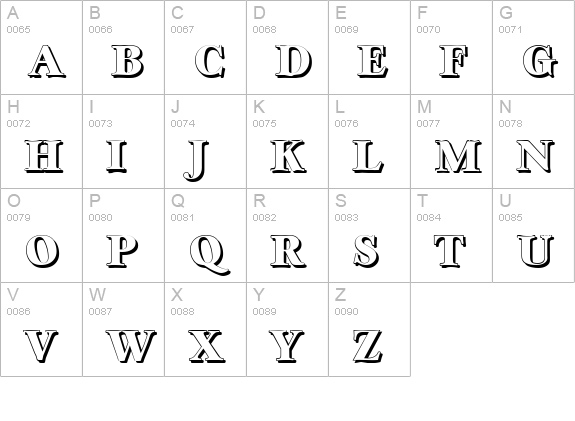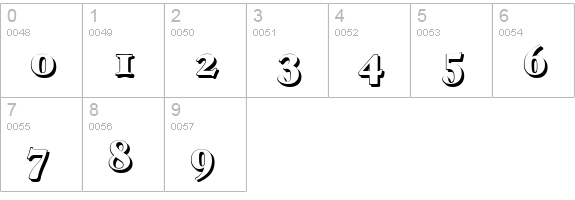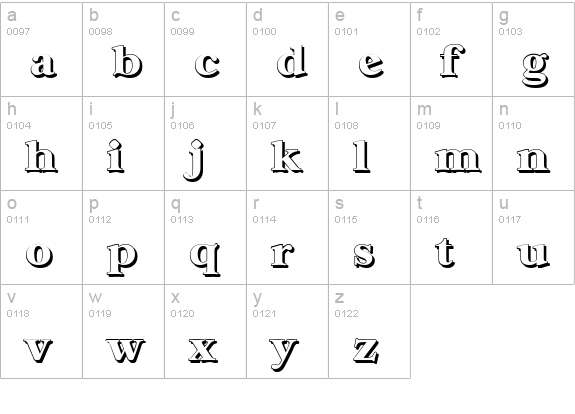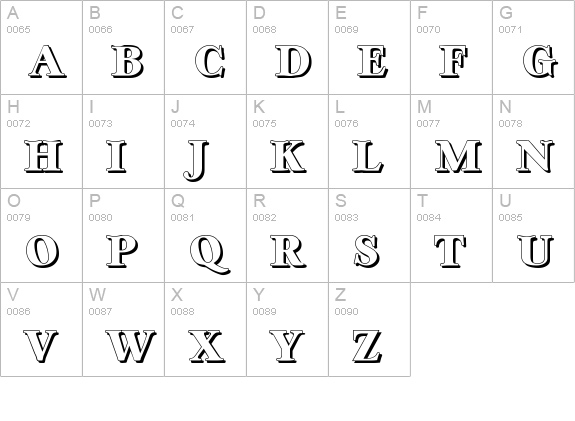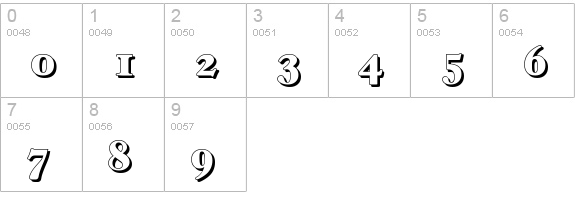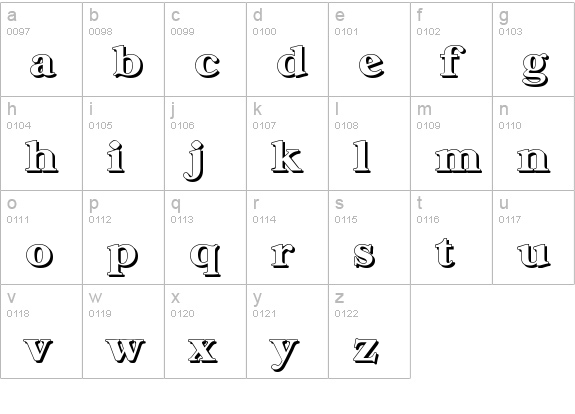
CasablancaShadow-Heavy-Regular Font Details
CasablancaShadow-Heavy-Regular is a heavy, high-impact variant in the CasablancaShadow typeface family \xE2\x80\x94 well suited to high-impact headlines, posters, and display advertising.
CasablancaShadow-Heavy-Regular is a striking and bold display font that exudes elegance and sophistication. Its sharp shadows add depth and dimension to any design, making it perfect for headlines, logos, and branding materials. This font combines classic elements with a modern twist, creating a timeless and versatile typeface that will make your projects stand out. Best of all, CasablancaShadow-Heavy-Regular is available for free download at FontsMarket.com. Whether you're a designer looking to add a touch of drama to your creations or a business owner in need of a distinctive font for your brand, this font has you covered. Don't miss out on the opportunity to enhance your projects with this stunning and impactful typeface. Download CasablancaShadow-Heavy-Regular today and elevate your designs to new heights.